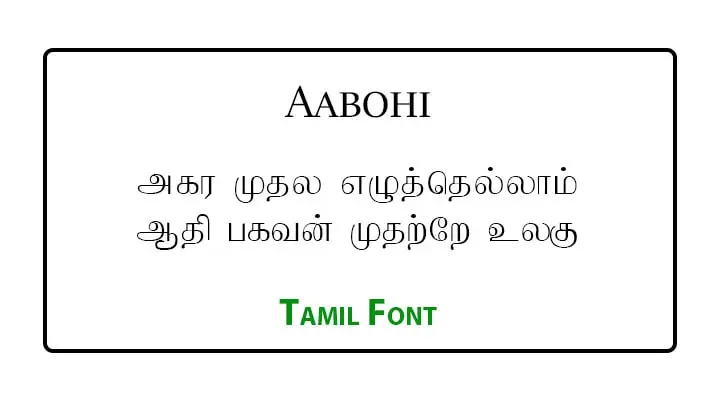
Aabohi Tamil Font Free Download. Aabohi is one of the Tamil Stylish Font. Specially used in publications. Here you can download Font and Keyboard Layout for Free. This font is widely used by Tamil Nadu and Sri Lankan Tamil Peoples. The following font was design and developed by Ethnomultimedia.